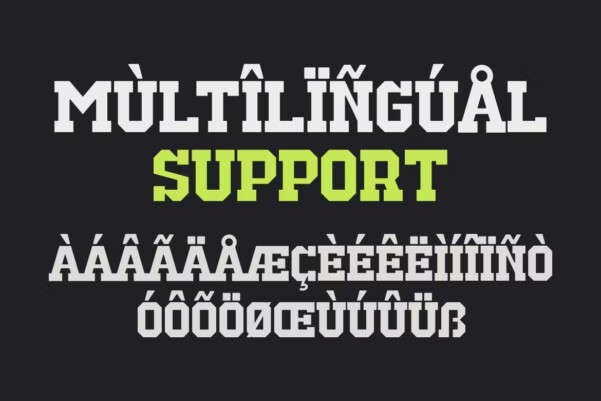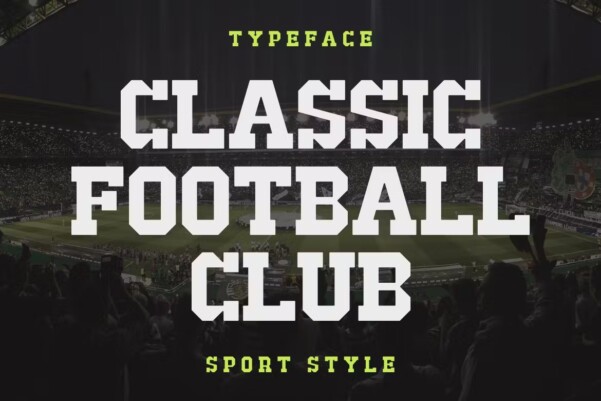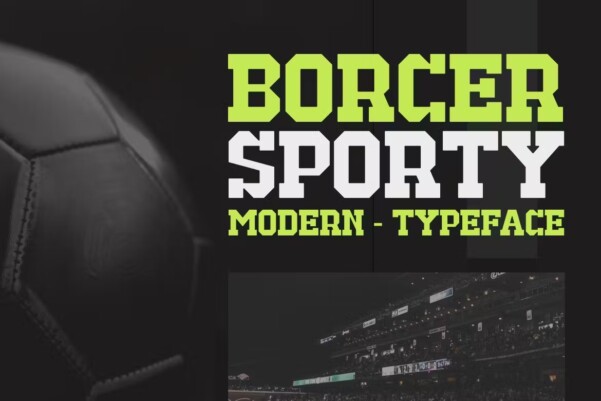
BORCER SPORTY Font
Varelmo Font – Modern Font is a bold and authentic display font. The font is suitable for any branding project such as logo, Template design, esports, etc. She is exceptional in a wide range of contexts